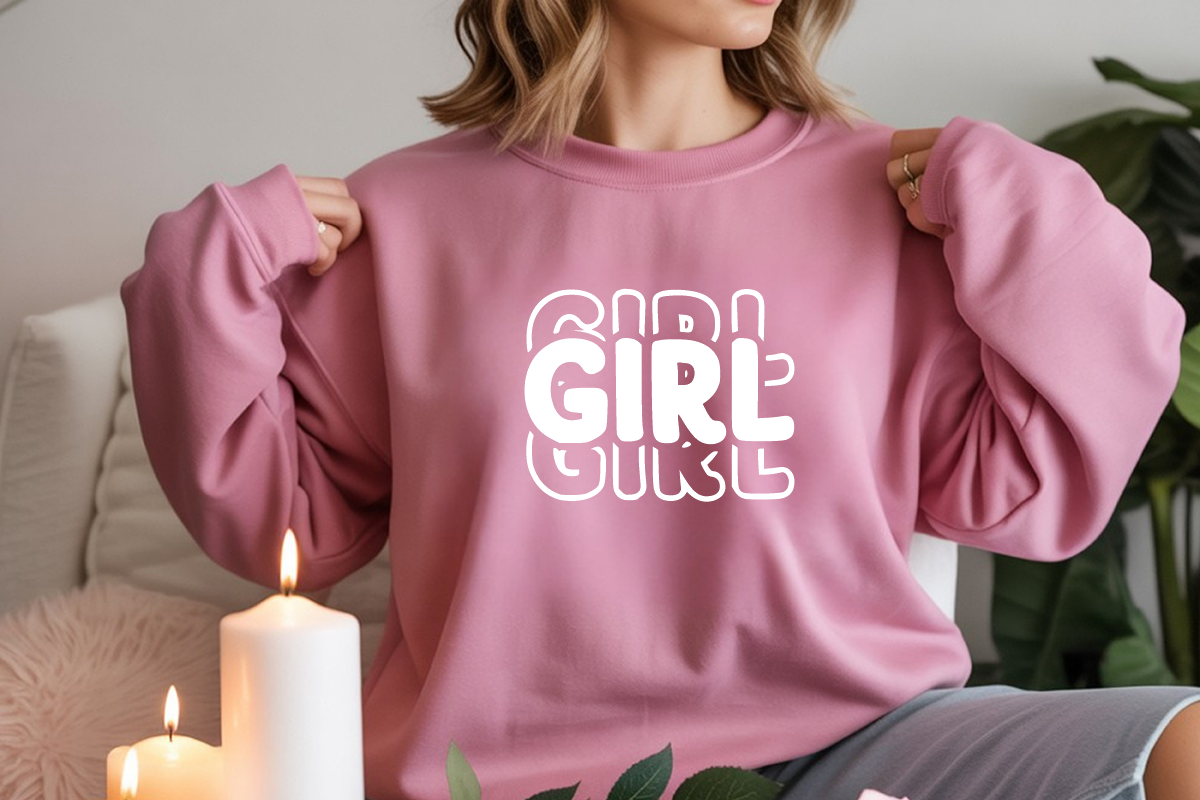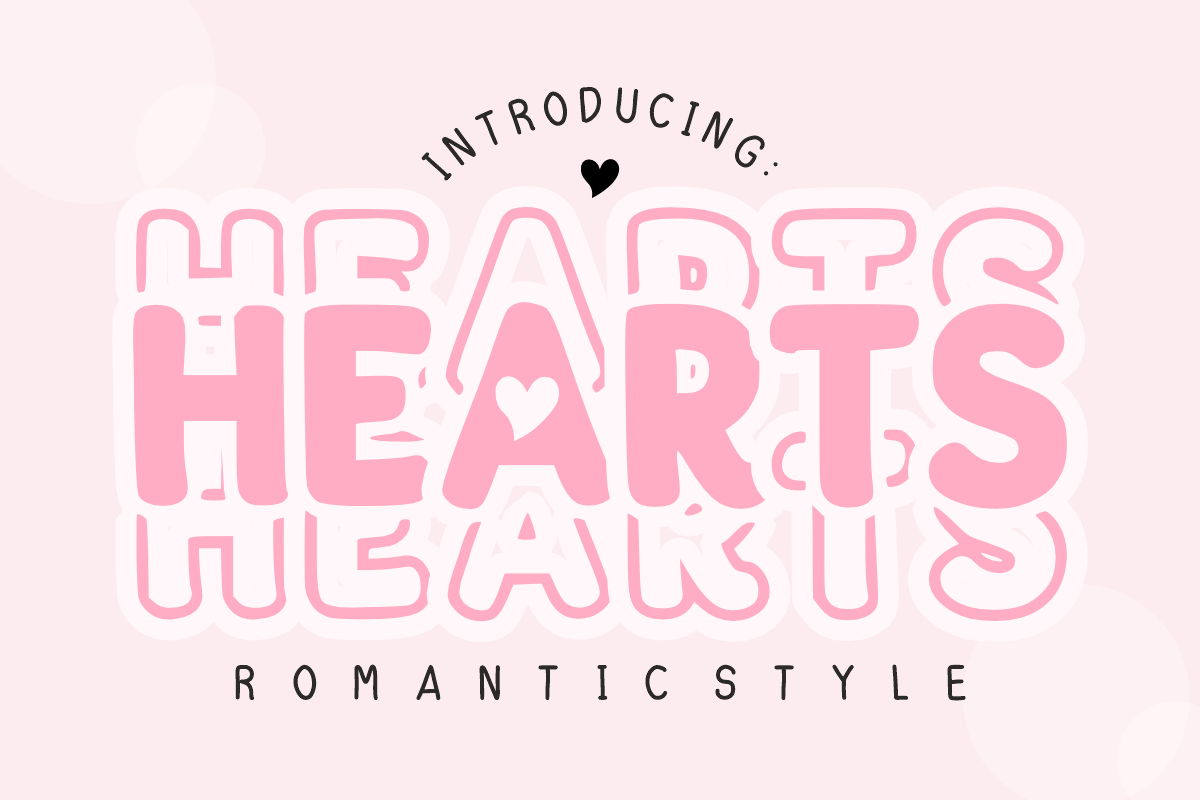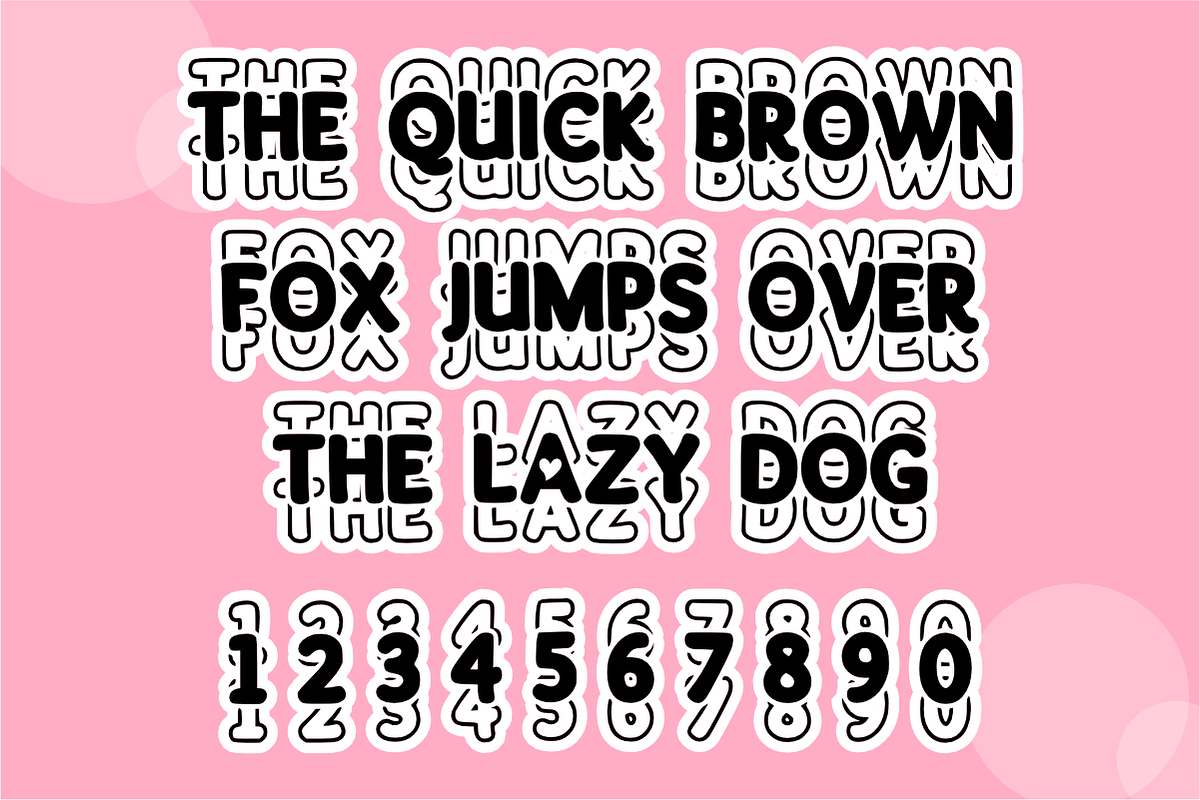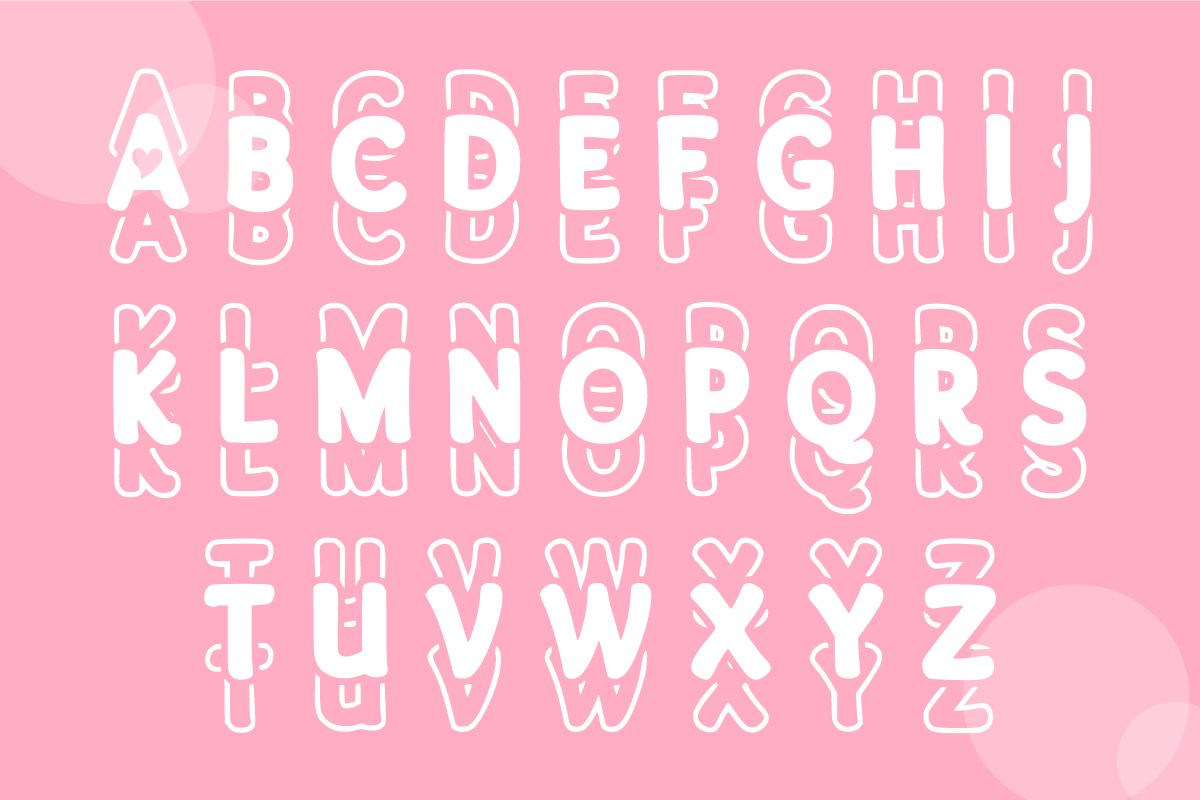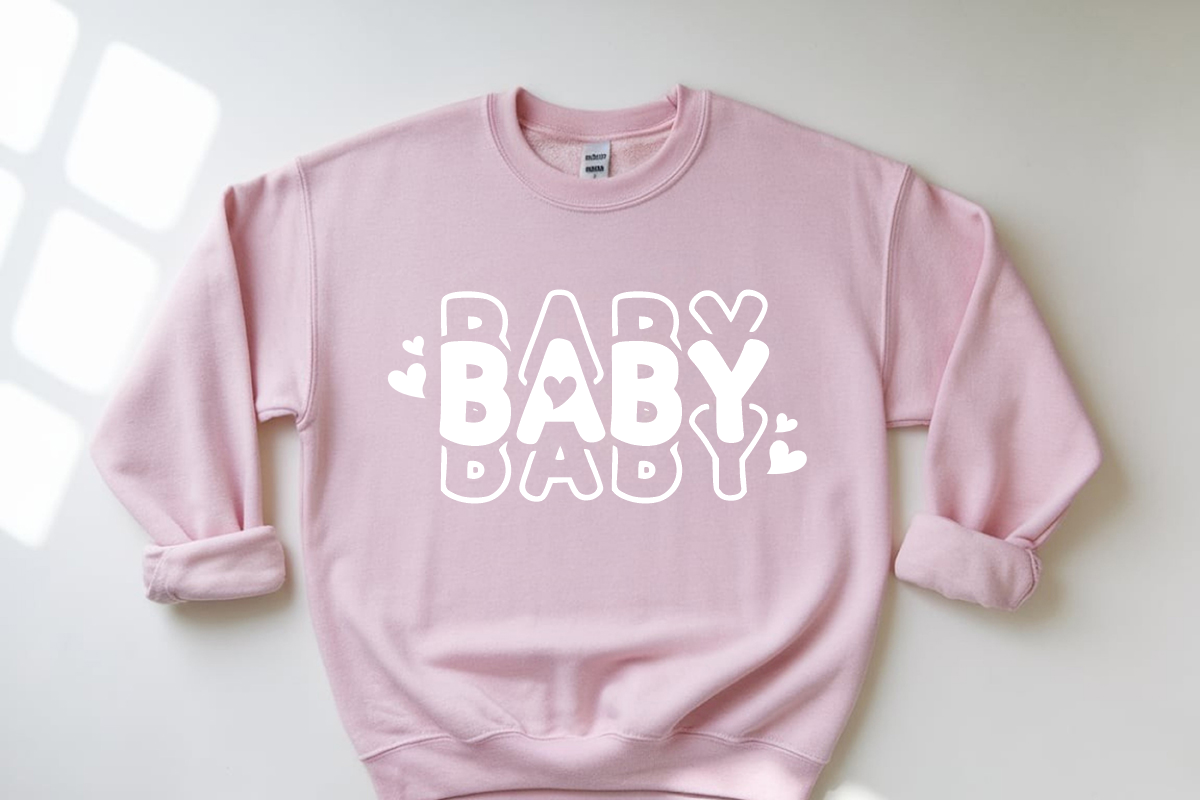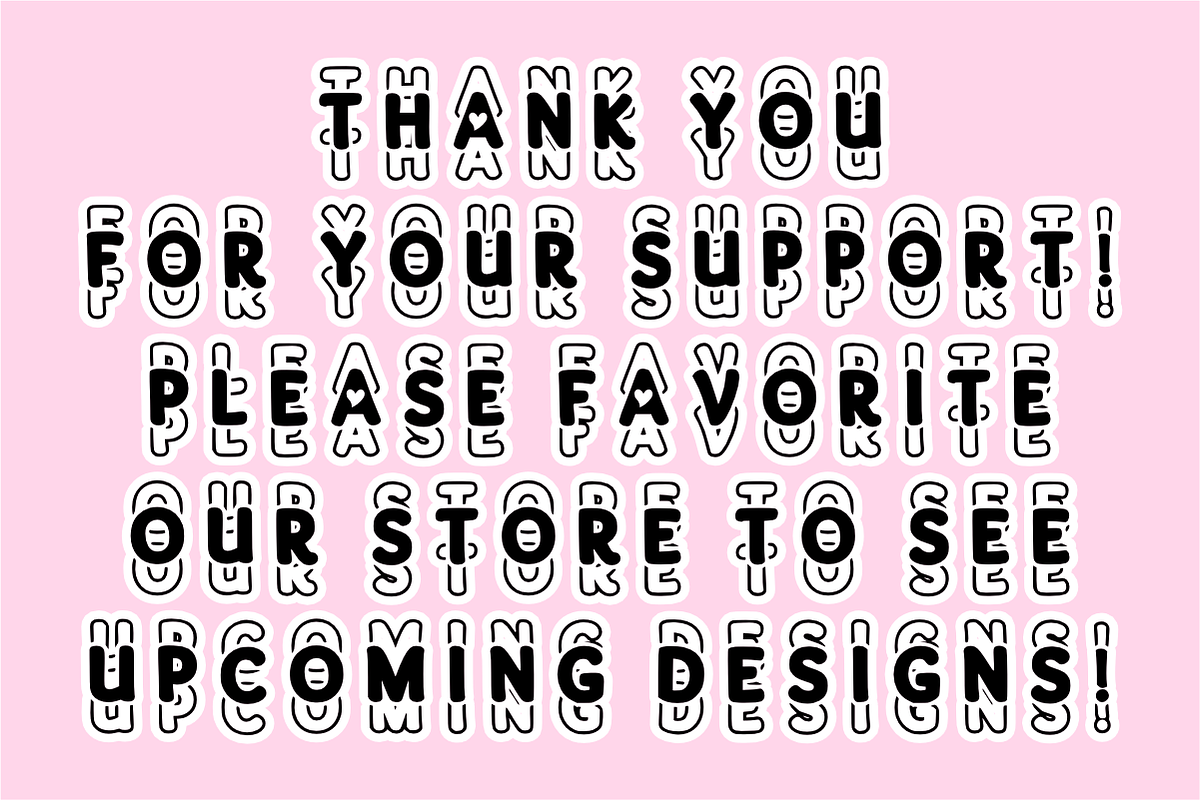
Hearts – Sweet & Playful Font
Hearts – Sweet & Playful Layered Bubbly Font ✨💖 Fall in love with your designs all over again!
Hearts is a chunky, ultra-rounded display font designed to bring a sense of joy, sweetness, and dimension to your creative projects. Featuring a unique "stacked" or layered aesthetic with charming heart cut-outs, this font is perfect for creating that trendy 3D sticker look. Its bold letterforms are soft, friendly, and high-impact, making it the go-to choice for anyone wanting to add a heartwarming touch to their visual storytelling.
🌟 Why Hearts is a Must-Have: Unique Layered Style: Specifically crafted to look amazing when layered or outlined, giving your text an instant 3D "pop" effect.
Charming Heart Details: Every character features sweet heart accents that make your headlines feel personal and full of love.
Bold & Legible: Despite its playful and thick design, the characters are clean and easy to read, ensuring your message is never lost.
🎨 Perfect For: 💖 Valentine’s & Romantic Themes: Dreamy greeting cards, wedding stationery, and "save the date" announcements.
🍼 Nursery & Kids' Decor: Personalized name signs, milestone cards, and cute bedroom wall art.
👕 Merchandise & Apparel: Trendy t-shirt slogans, tote bags, and custom vinyl stickers (Cricut/Silhouette friendly).
📱 Social Media & Branding: Eye-catching Instagram quotes, playful logos for boutiques, and vibrant YouTube thumbnails.
🎂 Events & Celebrations: Birthday invitations, party banners, cake toppers, and gift tags.